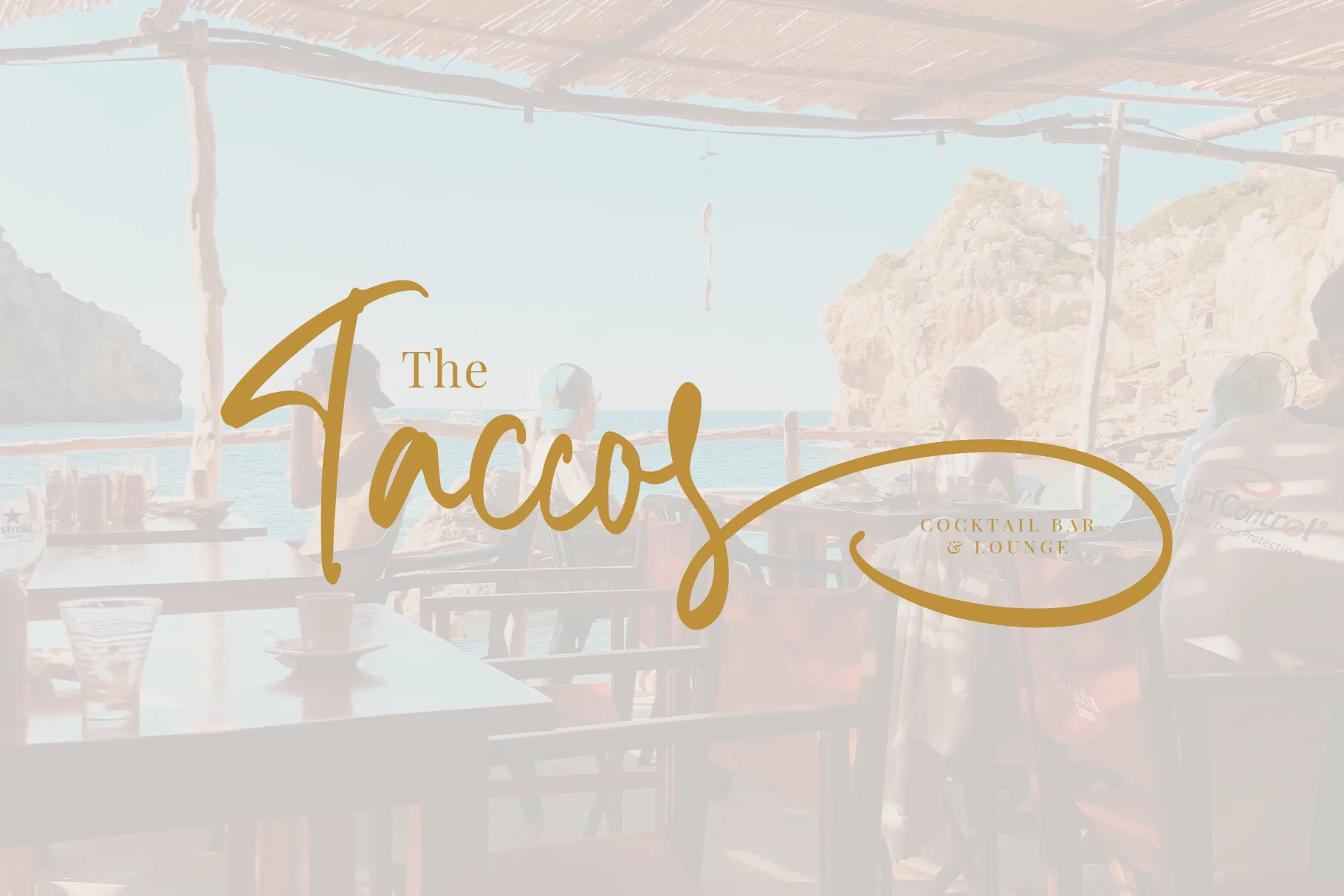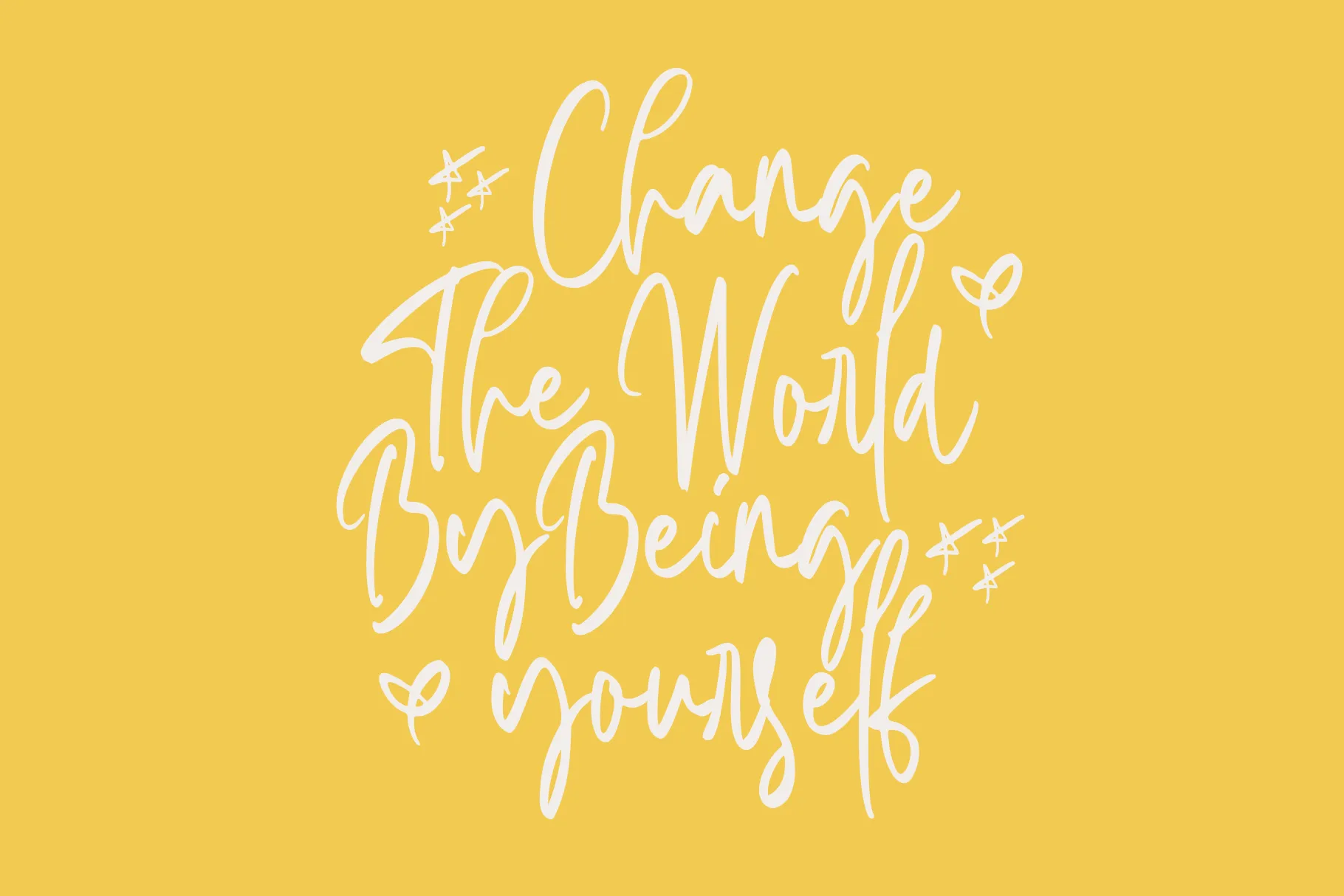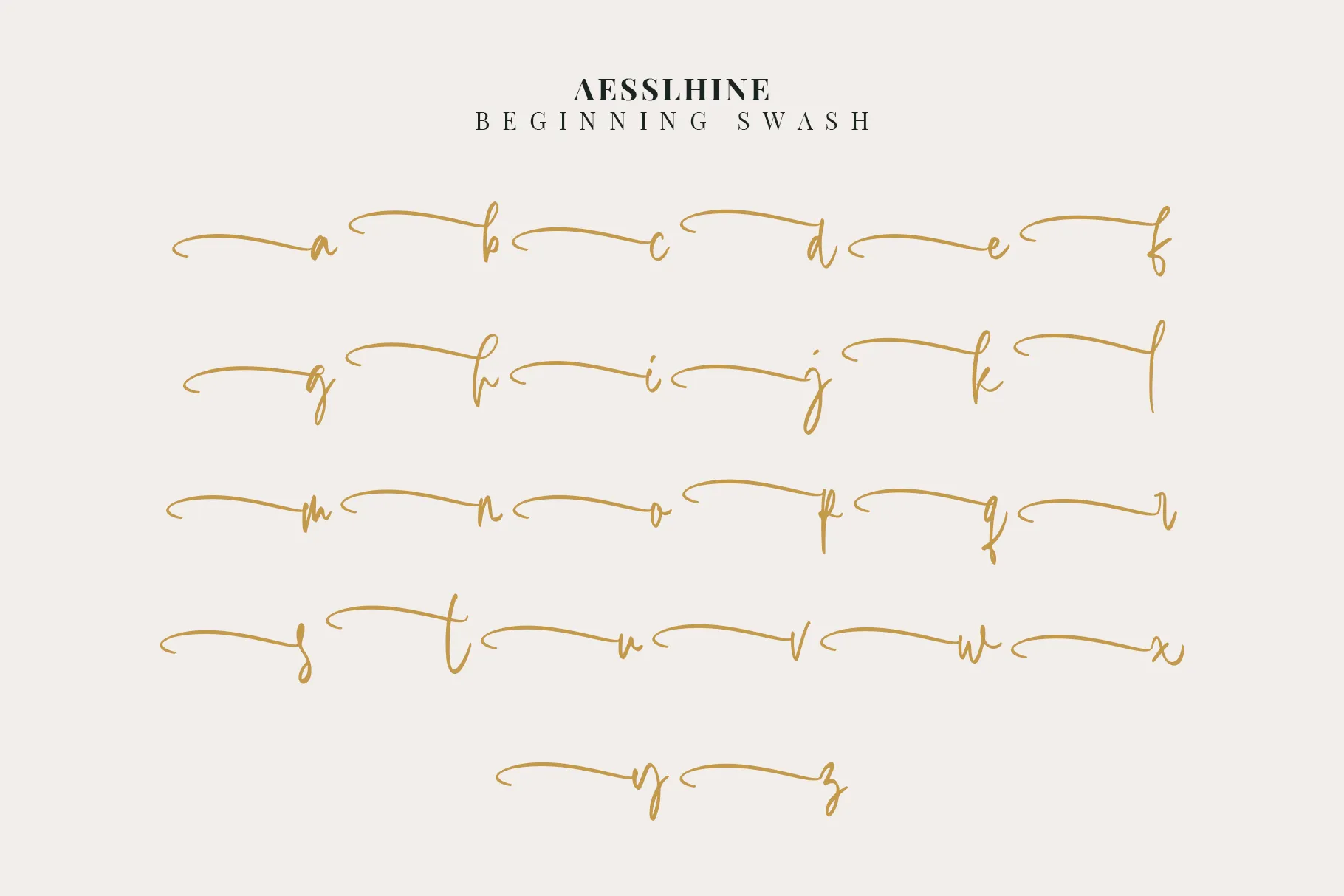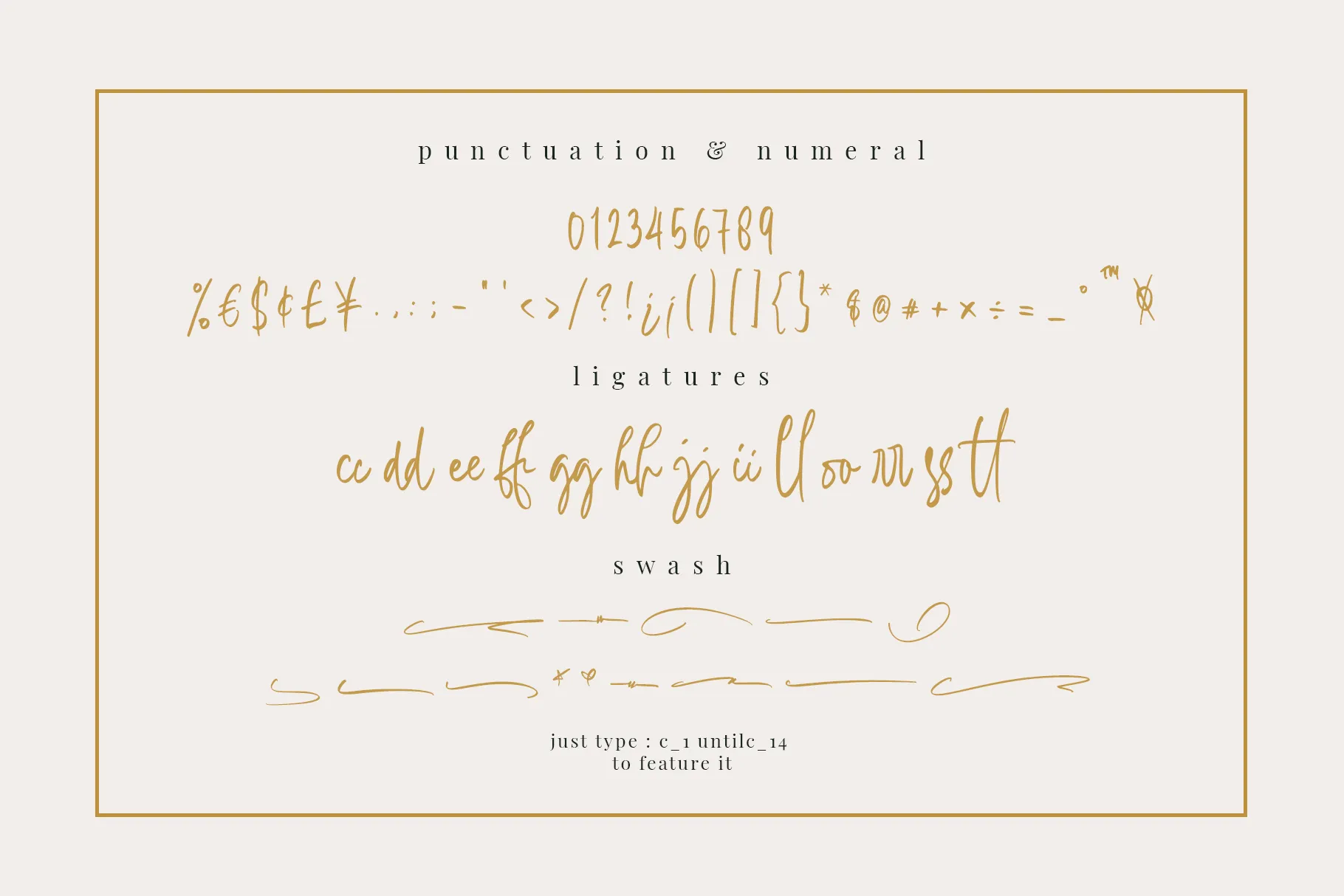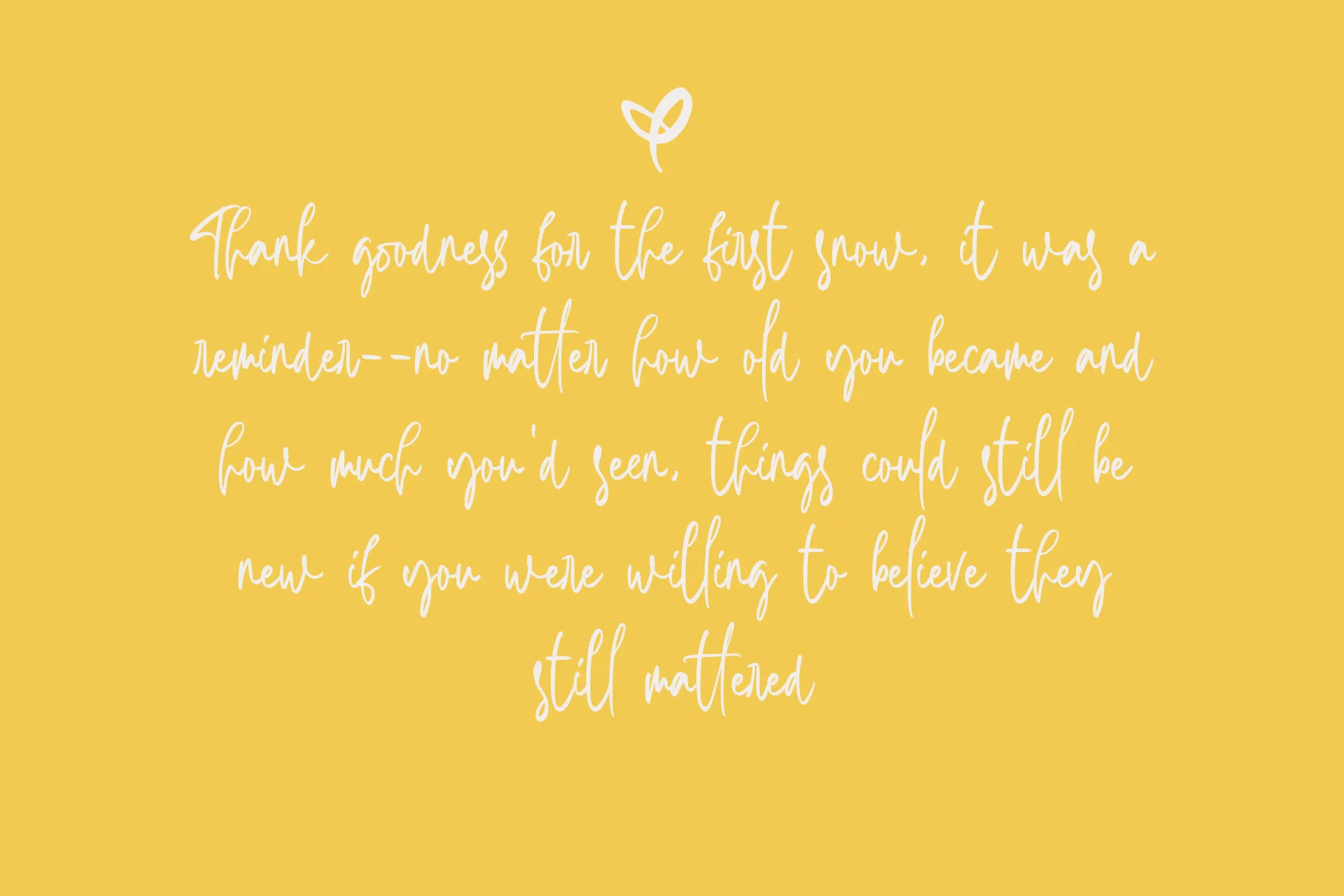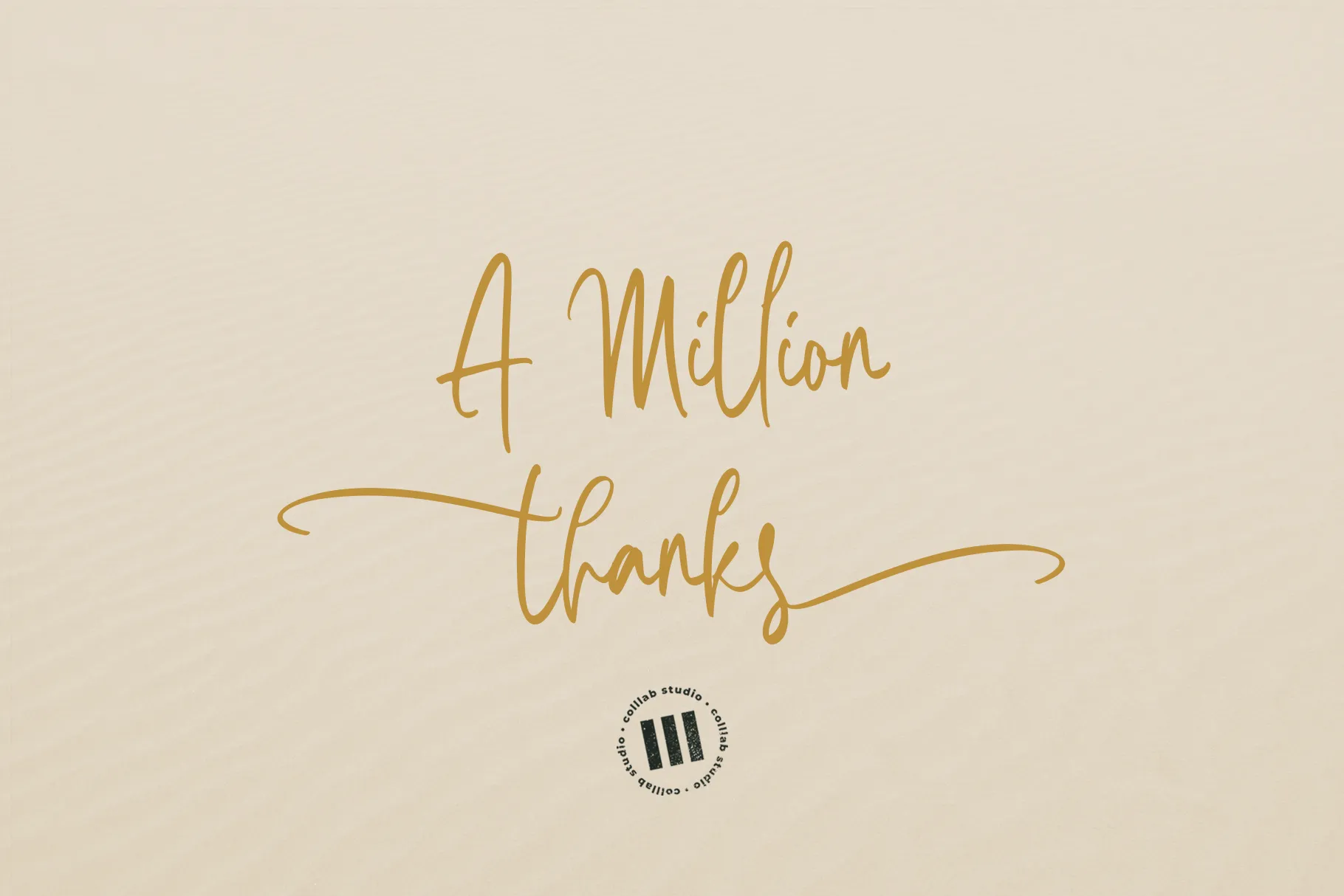
Aesslhine is an elegant handwritten script designed for modern creatives who want a balance of sophistication and personality in their work. With its long flowing swashes, graceful rhythm, and fashionable flair, Aesslhine is the ideal choice for branding, wedding stationery, packaging, logos, and social media visuals. The font combines the warmth of handwriting with the refinement of high-end lettering, making it versatile for both playful and luxurious designs.
Inspiration behind the font
The inspiration for Aesslhine came from stylish calligraphy blended with contemporary script trends. The goal was to create a typeface that feels chic yet approachable, with flexible features that allow designers to customize and add flair to their text. From handwritten signatures to branding with a touch of drama, Aesslhine captures the essence of modern calligraphic beauty.
Key Features
308 glyphs for a wide creative range
28 ligatures for smooth, natural letter connections
2 stylistic alternate sets for versatile variations
Beginning & ending swashes that bring dramatic flair to words
Uppercase & lowercase letters crafted with consistent elegance
Multilingual support for global usability
Perfect for logos, wedding designs, product packaging, invitations, and fashion branding